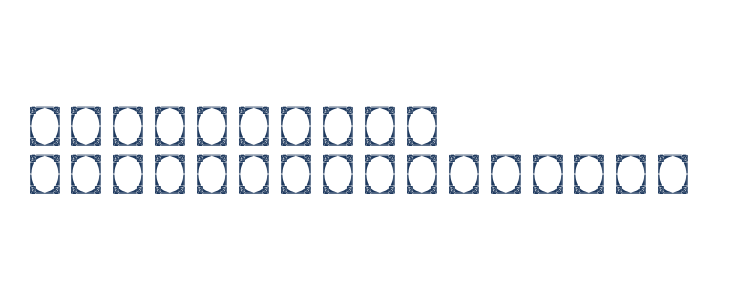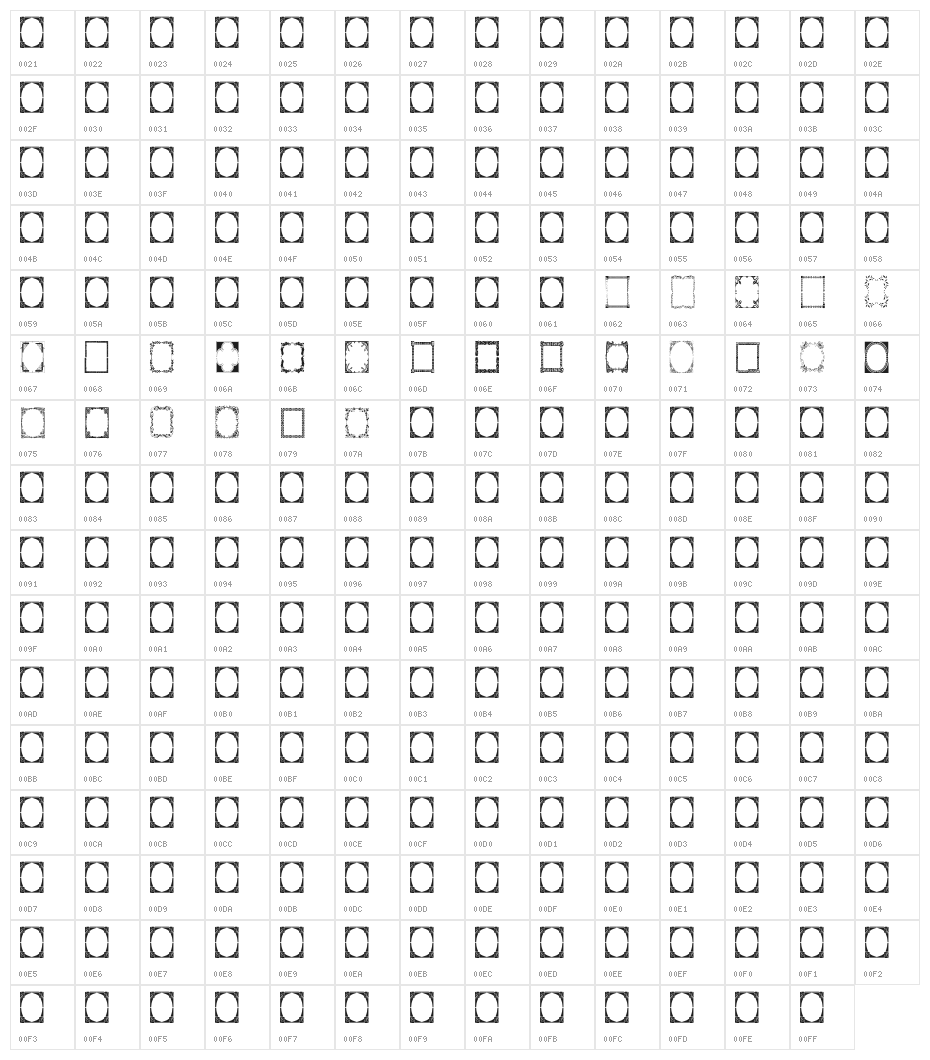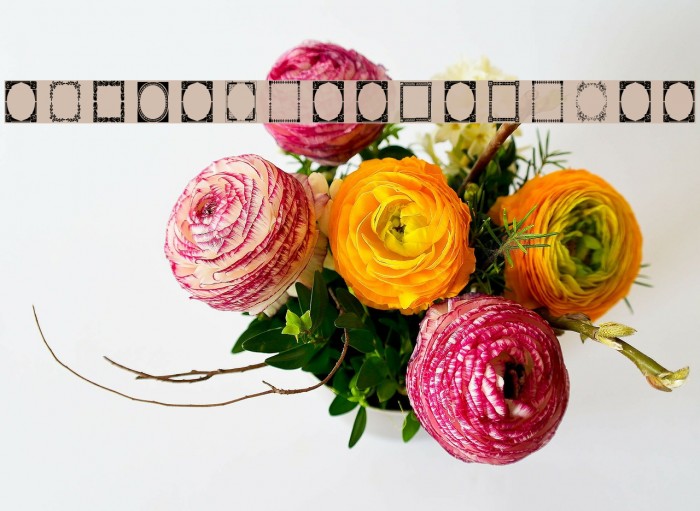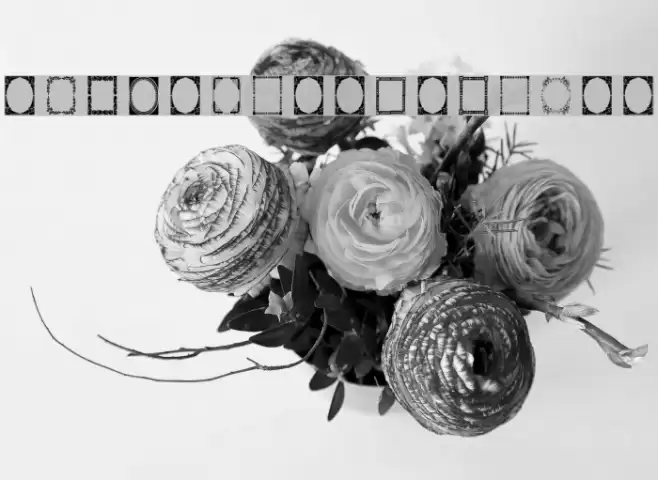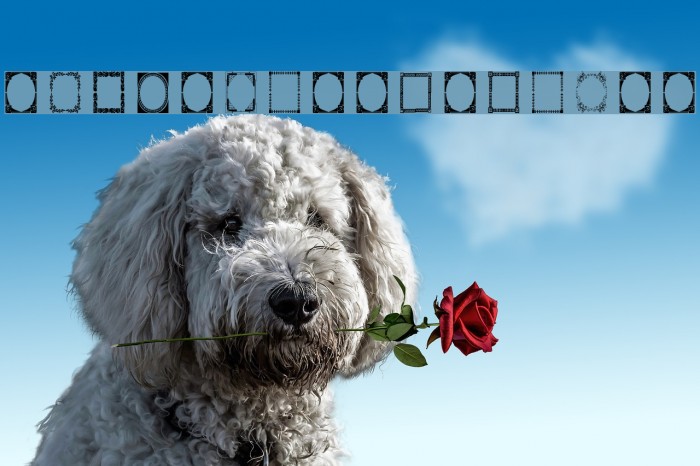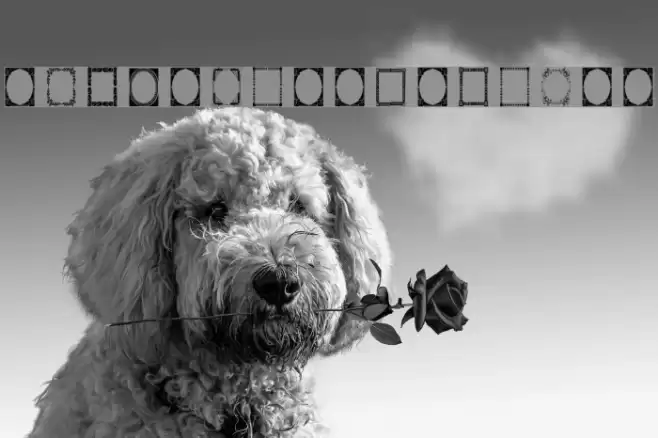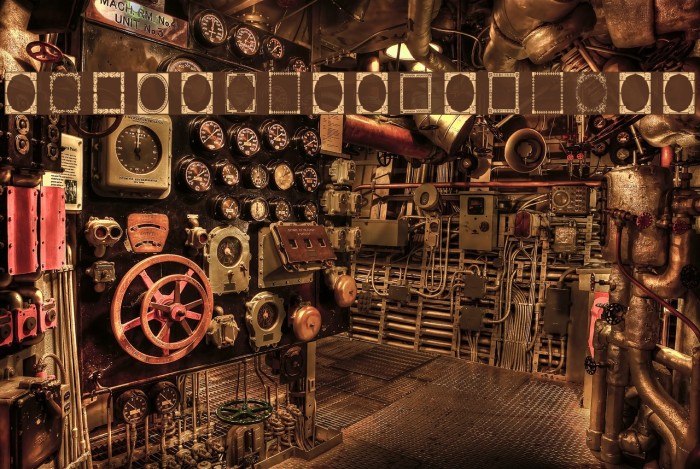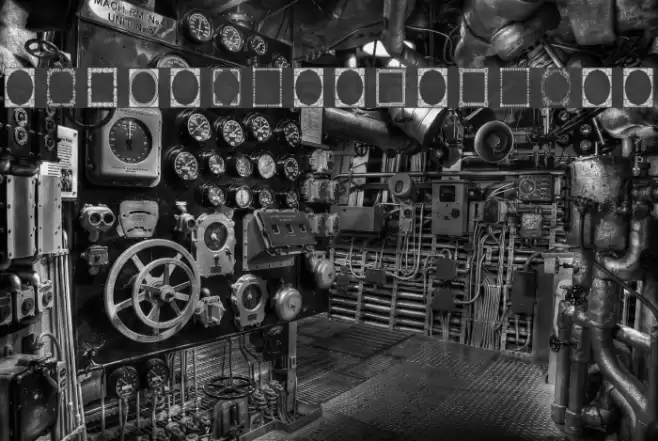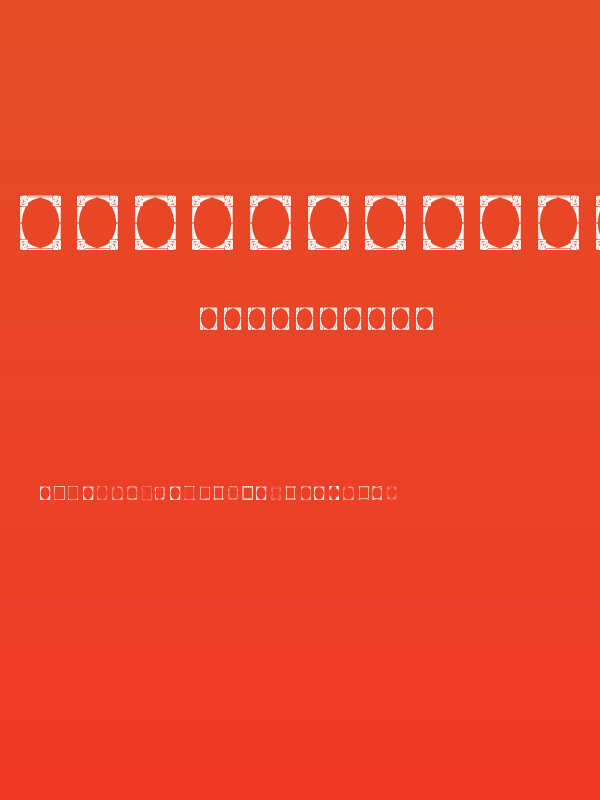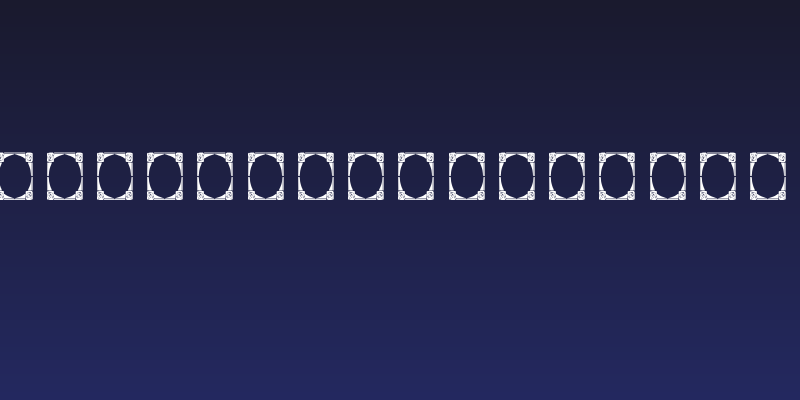
Vintage Frames 7 Font
Vintage Frames 7 Description
A collection of ornate, decorative vintage-style frames with intricate borders, featuring both circular and rectangular shapes, each frame displaying unique embellishments and flourishes.
| Overall Style | Vintage, Decorative |
| Use Case | Borders, Frames, Decorative elements |
| Proposed Projects | Invitations, certificates, scrapbooking, decorative labels, packaging, greeting cards. |